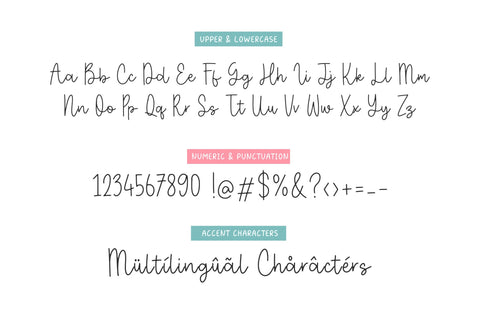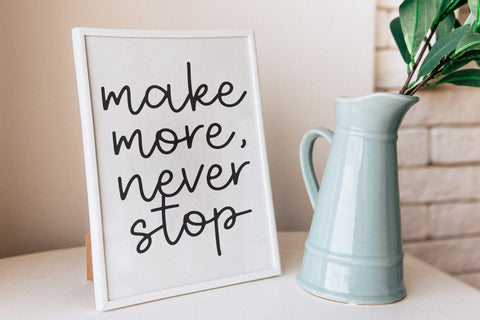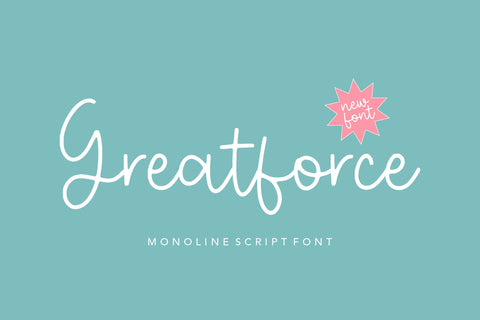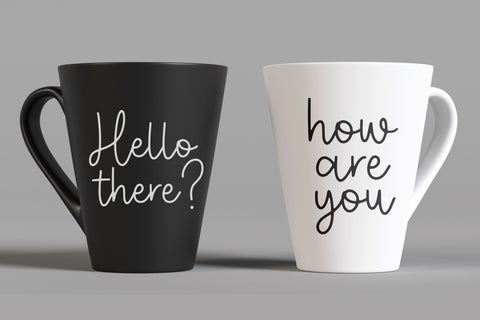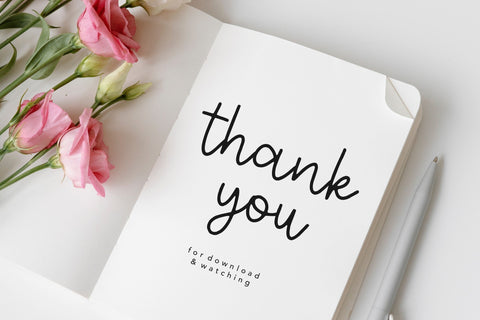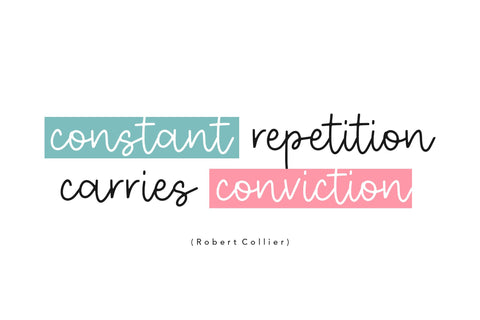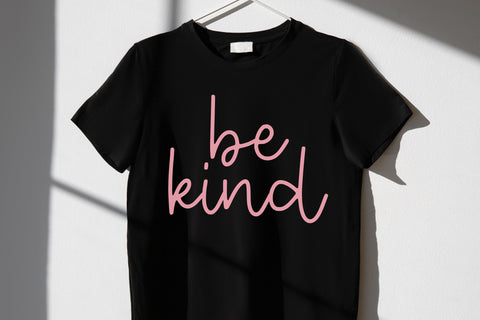
Greatforce Monoline Script Font
Proudly Present, Greatforce Font.
Greatforce is a Monoline Script Font. This font is suitable for use in your design projects. for logotype, photography, wedding invitations, advertisements and any project that requires a monoline script font.